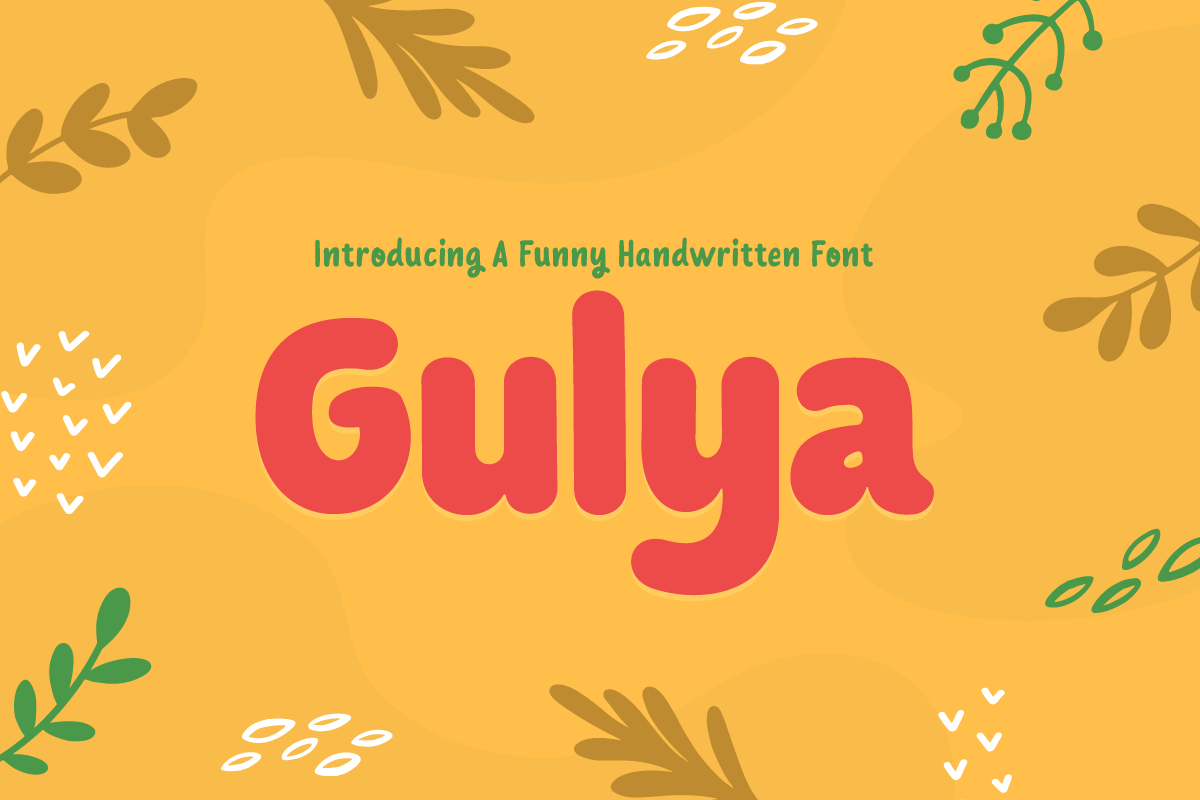
Gulya
-Funny Handwriting Kids and Child Game Font
Gulya
Gulya is A Funny Handwriting Kids and Child Game Font. This font specially crafted for your design projects such as cute logo, unique poster, modern for t-shirt designs, product packaging, merchandise, pillow print and so many more with easy to use but unique results are so cute.
Enjoy to Design any your needs with cute, lovely, and childish feel.